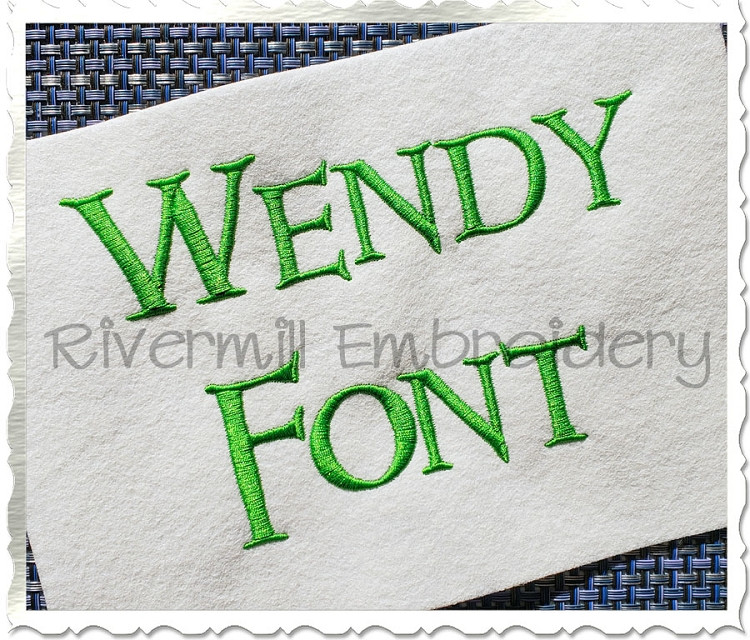
Wendy Machine Embroidery Font Alphabet
There are split satin stitches in the wider areas of each letter.
The set includes upper and lower case letters and numbers 0-9.